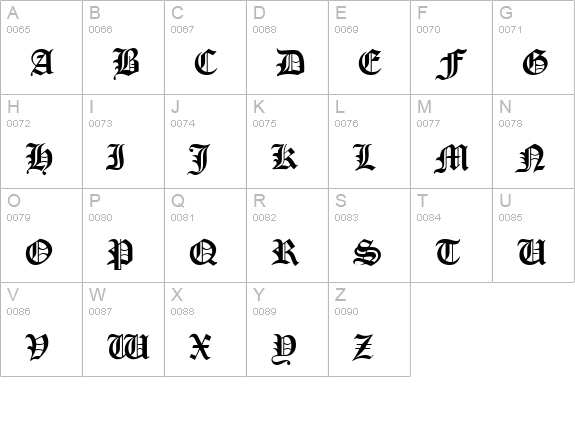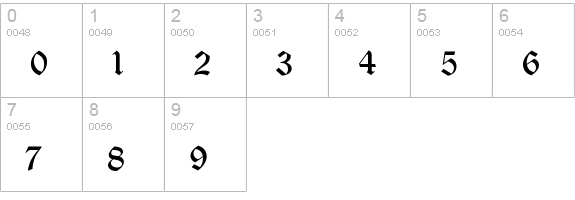
Manuscript Font Details
Introducing Manuscript font, a beautifully crafted typeface that combines elegance with readability. This font is perfect for adding a touch of sophistication to your designs, whether for a formal invitation, a book cover, or a branding project. With its meticulously designed letterforms and graceful curves, Manuscript font exudes a timeless charm that captures the essence of classical calligraphy. What sets Manuscript font apart is not just its exceptional aesthetics, but also its accessibility. This font is freely available to download at FontsMarket.com, making it a valuable asset for both professional designers and enthusiasts alike. Gone are the days of limited options and expensive licensing fees – Manuscript font provides a high-quality solution that won't break the bank. With Manuscript font, you can effortlessly elevate your designs to new heights. Its versatility allows for seamless integration into various creative projects, from wedding invitations to editorial layouts. The carefully crafted details of each character ensure legibility even at smaller sizes, making it ideal for body text as well. Immerse yourself in the world of Manuscript font and unlock endless possibilities. Whether you're a seasoned designer or just starting your creative journey, this font is sure to inspire and enhance your work. Download Manuscript font for free at FontsMarket.com and let your imagination run wild.